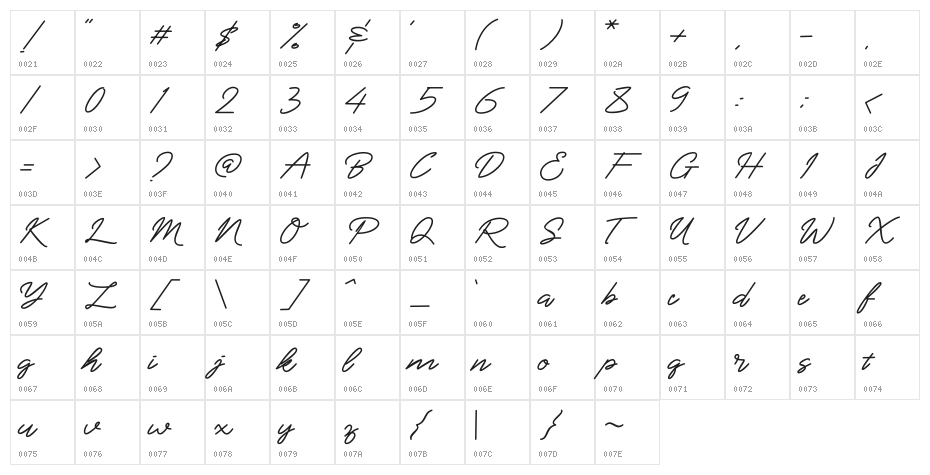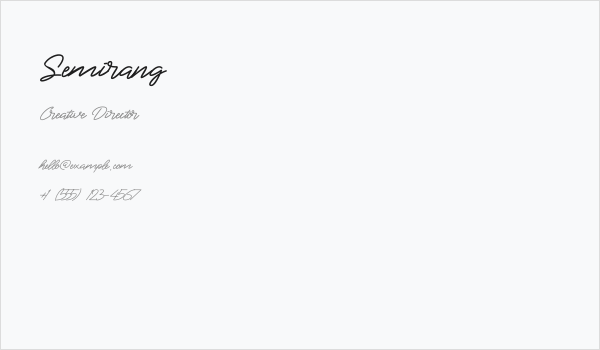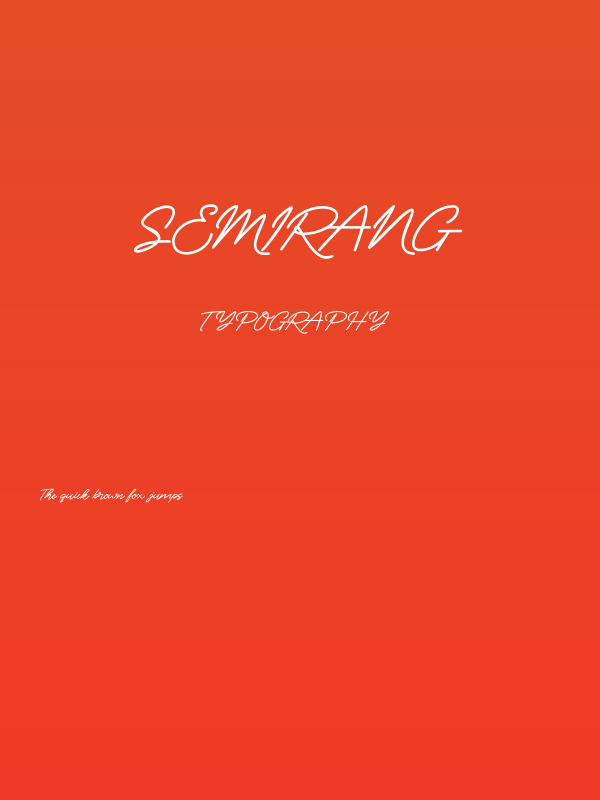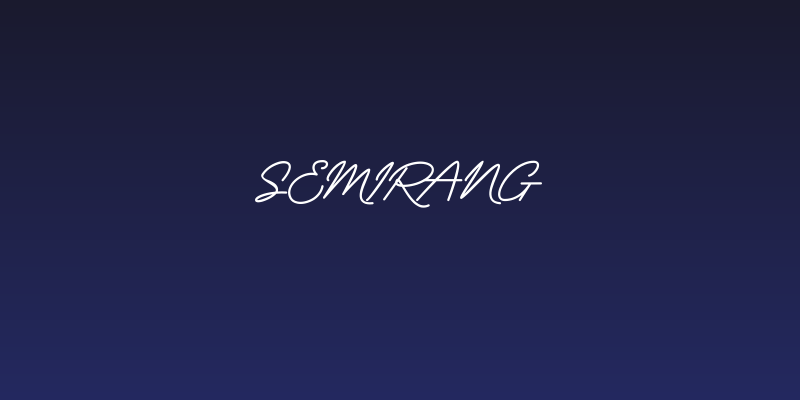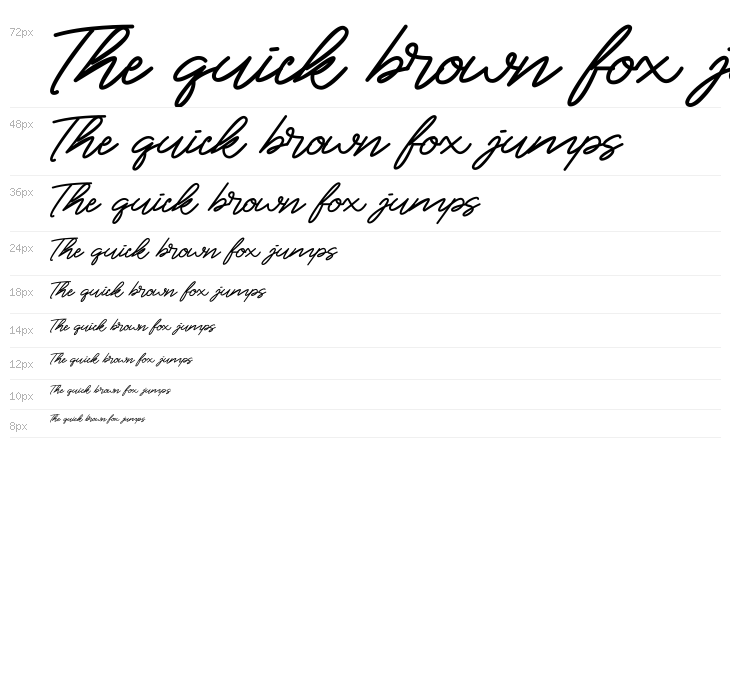
Semirang Font
Semirang Description
This font exudes a dynamic and flowing script style, characterized by its elegant cursive letters that mimic natural handwriting. The uppercase and lowercase letters are seamlessly connected, creating a fluid and continuous appearance. The strokes are smooth and slightly slanted, adding a sense of motion and grace. The numerals and special characters maintain the same cursive style, ensuring consistency across all glyphs. This font is perfect for projects that require a personal touch or a handwritten aesthetic.
| Overall Style | Elegant, Handwritten |
| Proposed Projects | Ideal for wedding invitations, greeting cards, personal branding, and artistic projects that require a handwritten feel. |